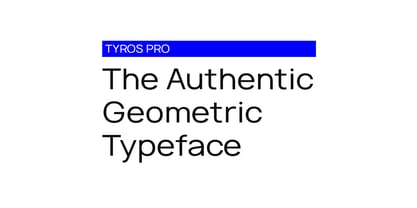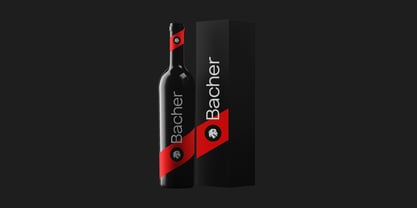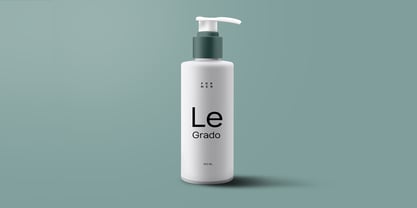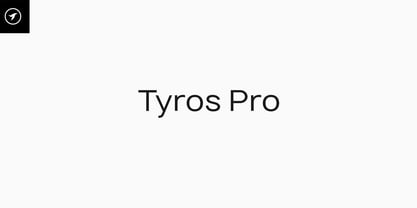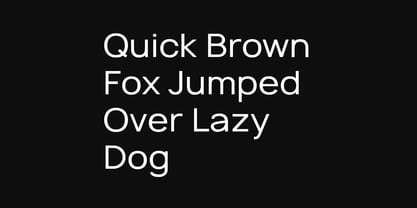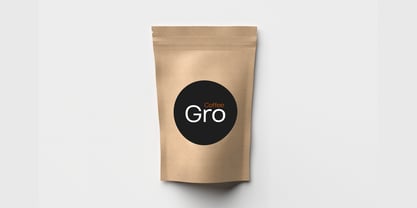
Tyros Pro
von Designova
Die Schriftfamilie Tyros Pro wurde von Jean Johnson entworfen und von Designova veröffentlicht. Tyros Pro enthält 12 Stile und Familienpaketoptionen. Mehr über diese Familie
TYROS Pro - An authentic geometric Sans-Serif typeface, a perfect choice for print, web, logo design, marketing graphics and branding. A traditional geometric design inspired by the world's best typefaces. An ideal choice for any type of design, logotypes, headlines, branding, marketing graphics, corporate identities, and all web & print purposes.
Designer: Jean Johnson
Foundry: Designova